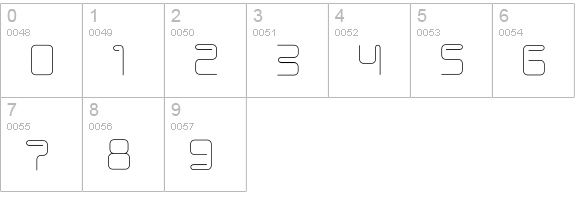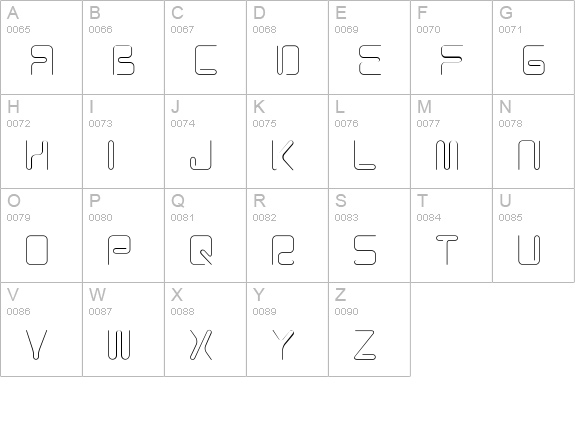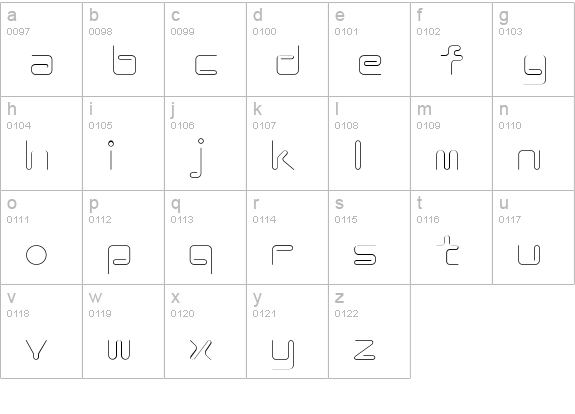
Coil-Light is a refined, elegant variant in the Coil typeface family \xE2\x80\x94 well suited to elegant body text, refined sub-headings, and luxury branding.
Introducing Coil-Light font, a sleek and modern typeface that exudes elegance and sophistication. This font features clean lines and a subtle curvature that gives it a unique and contemporary feel. Perfect for use in a wide range of design projects, from branding to editorial, Coil-Light font adds a touch of sophistication and style to any layout. What's even better is that Coil-Light font is available for free download at FontsMarket.com! You can easily access this beautiful typeface and use it in your projects without breaking the bank. So why wait? Enhance your designs with Coil-Light font today and elevate your creative work to the next level.